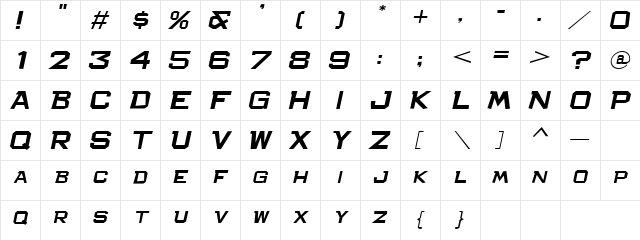
Bachelor Pad Expended JL Italic
Design Context for Bachelor Pad Expended JL Typeface
Bachelor Pad Expended JL is a composed and adaptable typeface that performs quietly and consistently across a wide range of design contexts. The slanted form adds forward momentum and visual energy.
Pro Tip: Try Bachelor Pad Expended JL for annotation and caption copy alongside an upright companion — the contrast in angle creates a dynamic but ordered typographic system.